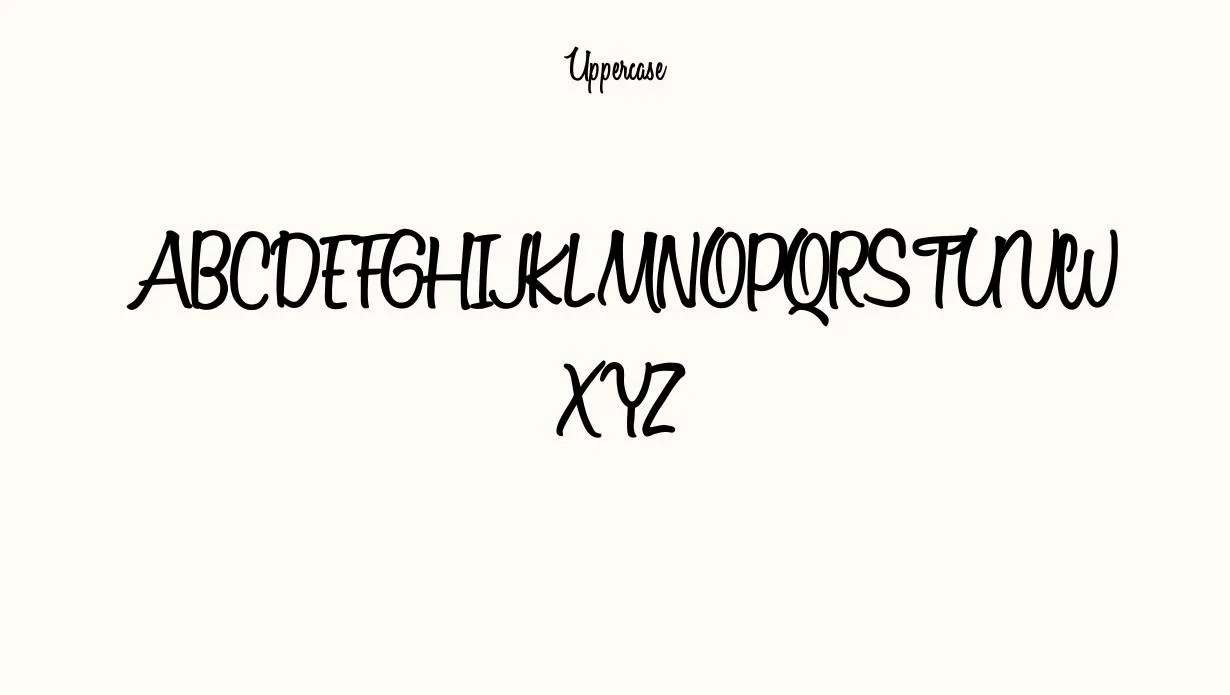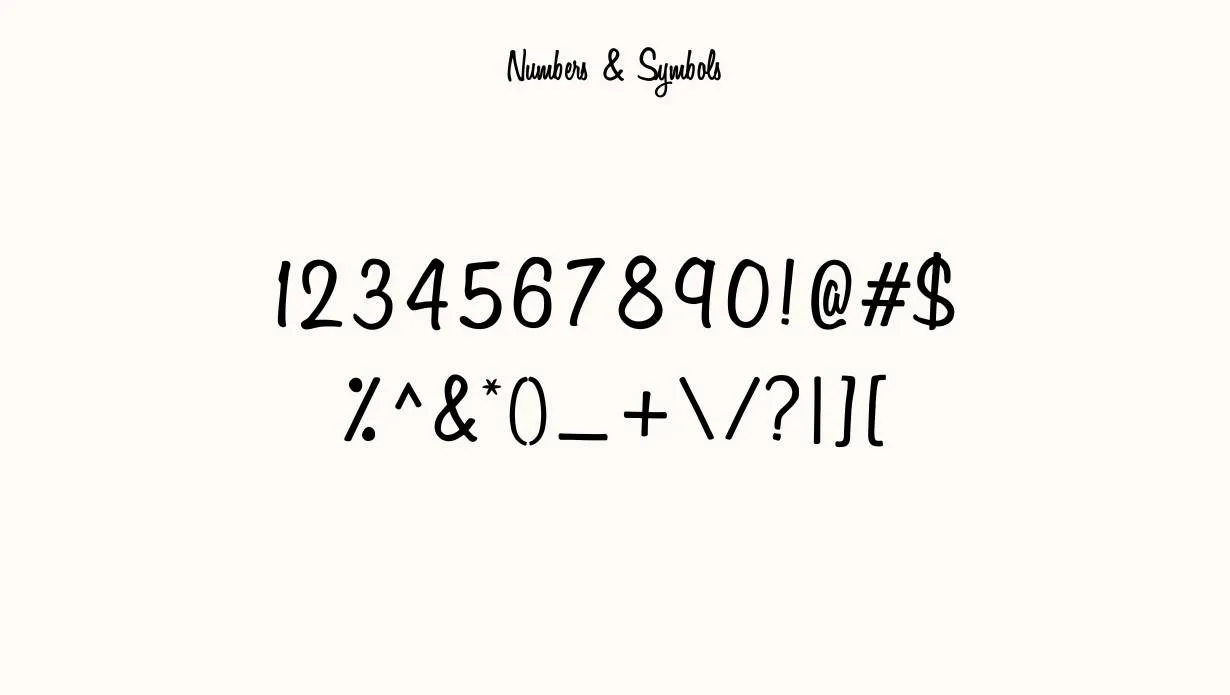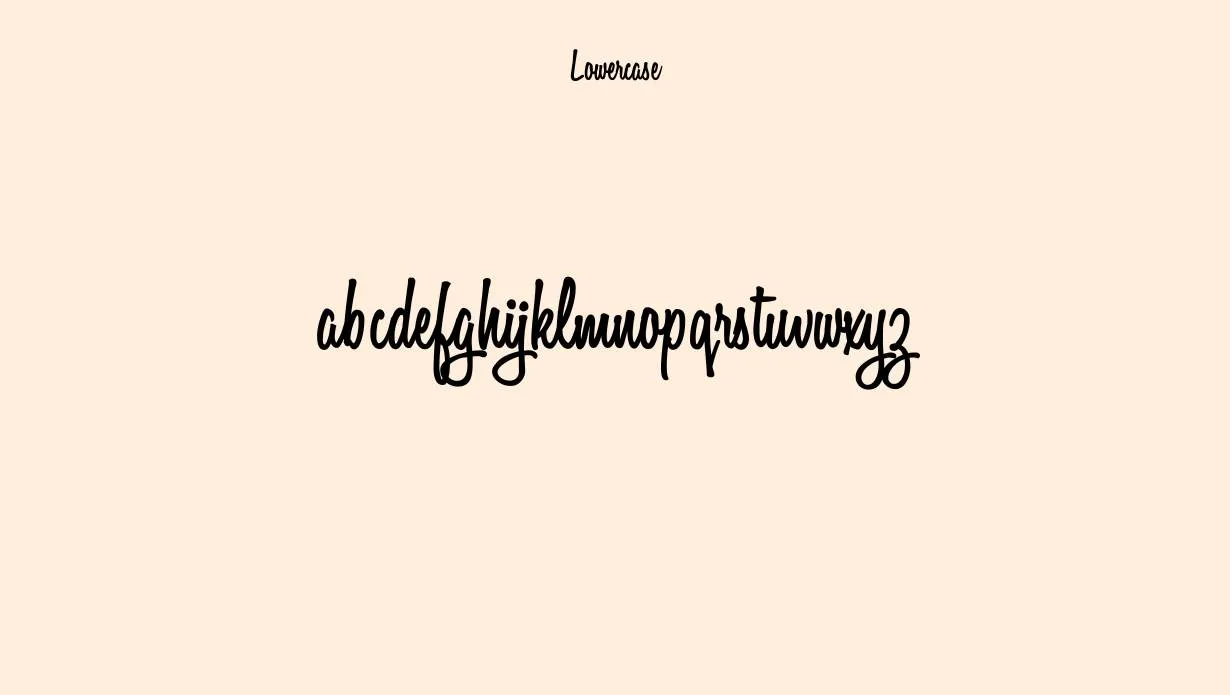
Variane Script Font is a decorative and expressive typeface known for its bold and flowing design. It’s frequently used in creative and artistic projects where designers want to convey a sense of energy and vibrancy.
The font’s expressive letterforms add a dynamic and artistic element to your designs.
| Name | Variane Script Font |
| Designer | Work Ins Studio |